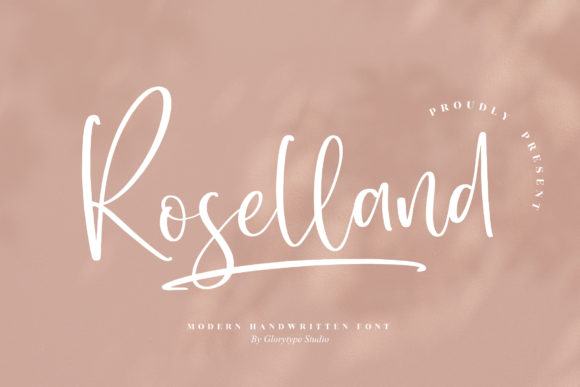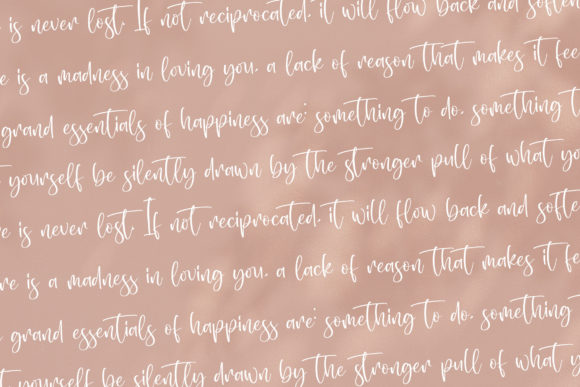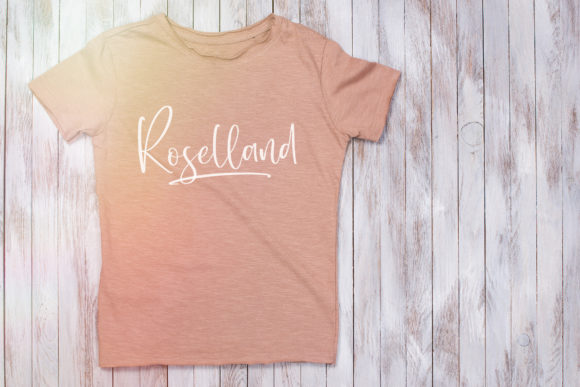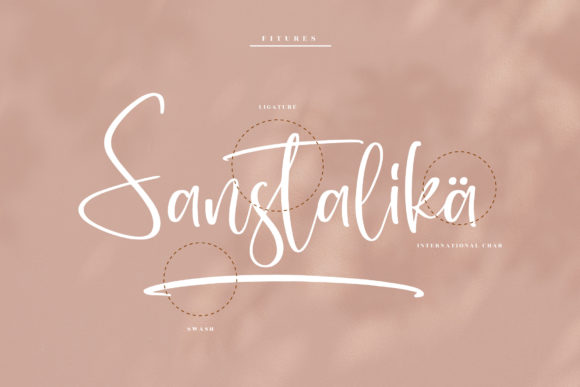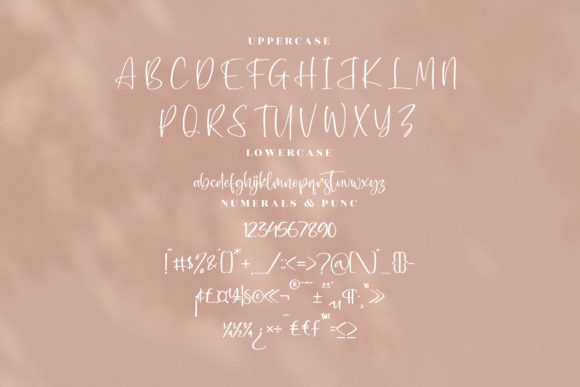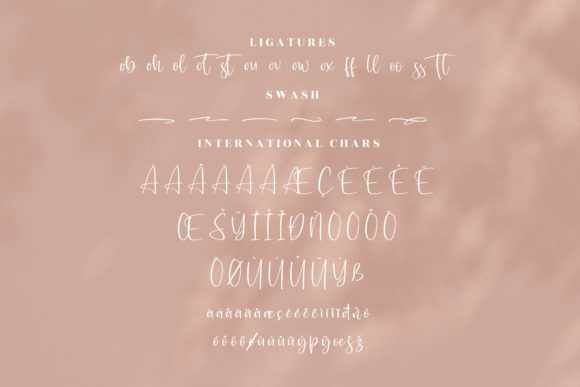
About Roselland Font
Roselland is a beautiful script font, suitable for any projects such as logos, branding projects, homeware designs, product packaging, mugs, quotes, posters, shopping bags, t-shirts, book covers, name cards, invitation cards, greeting cards, labels, photography, watermark, special events, and all your other lovely projects that need a beautiful script taste.